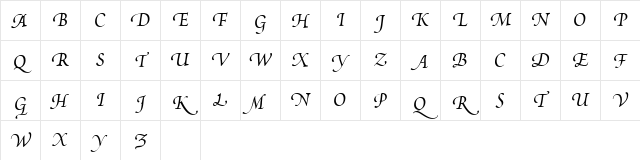
Poetica SuppSwashCapsII Italic
Design Context for Poetica SuppSwashCapsII
Poetica SuppSwashCapsII flows with the natural rhythm of handwritten lettering, making it ideal for designs that call for warmth and personal expression.
Font Pairing: Combine Poetica SuppSwashCapsII with a simple geometric sans for maximum contrast - the tension between flowing curves and clean structure is a classic typographic pairing.
Pro Tip: Use Poetica SuppSwashCapsII for short runs of text - names, titles, or taglines. Extended body copy in script faces tires the eye quickly.